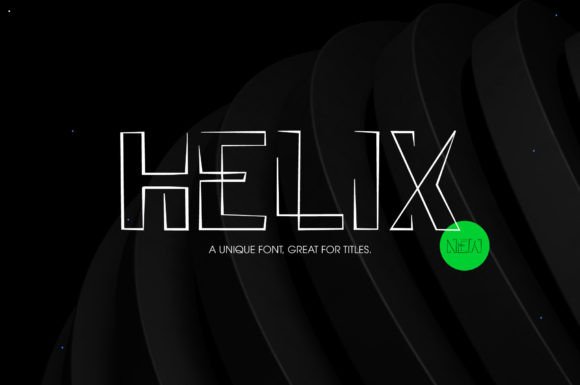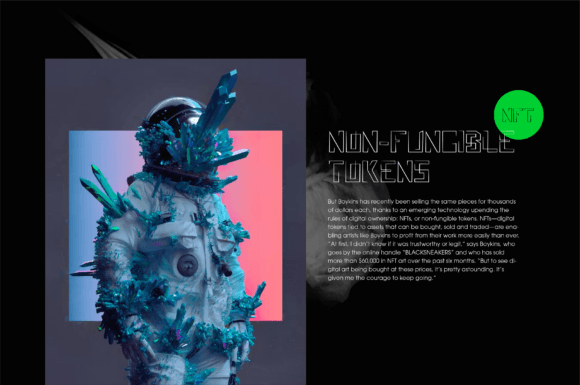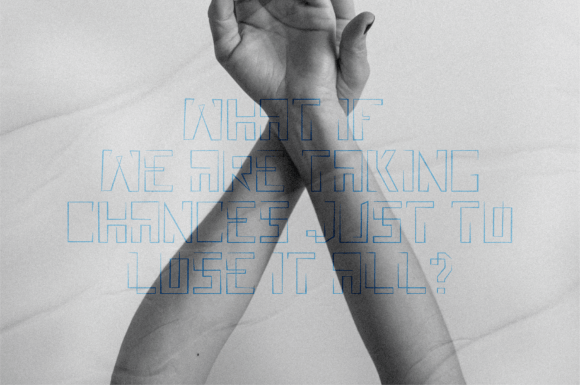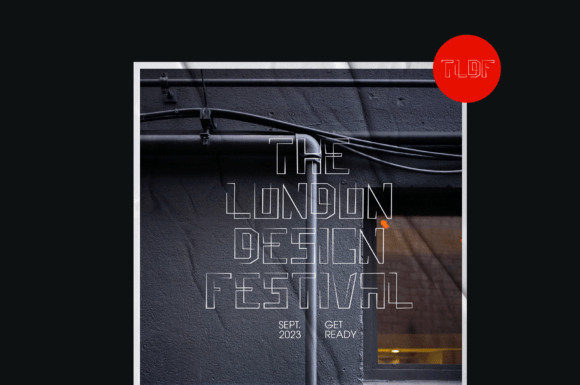
Helix Font
About the Helix Font
Step up your design game with Helix Font, a font that exudes confidence and style. Helix is a single-line display typeface. Its eye-catching design is bound to grab attention and turn heads. You can use Helix for editorials, posters, headlines, social media, packaging, and more. The font is fully kerned and is ready to be used out of the box. If you’re looking for an uncommon geometric typeface then Helix is for you!
Helix’s bold geometric structure makes it ideal for headlines, logos, and short impactful statements in branding materials and posters. Its strong personality shines in packaging design, particularly for products emphasizing innovation or a modern aesthetic. However, its condensed nature and high x-height make it unsuitable for body text or extended reading. Avoid using Helix in user interfaces or situations requiring high readability over short distances.
Pairing Helix effectively requires considering its assertive character. A clean sans-serif like Open Sans or Lato provides a solid, readable counterpoint for body copy, maintaining visual harmony. For a more luxurious feel, a classic serif like Garamond or a delicate script like Great Vibes can be used sparingly as an accent to soften the geometric impact.
Helix projects a modern, confident, and slightly rebellious personality. Brands focused on technology, fashion, or edgy products will find it particularly effective in communicating their brand identity.
Helix Font Usage Examples
Helix Font Example